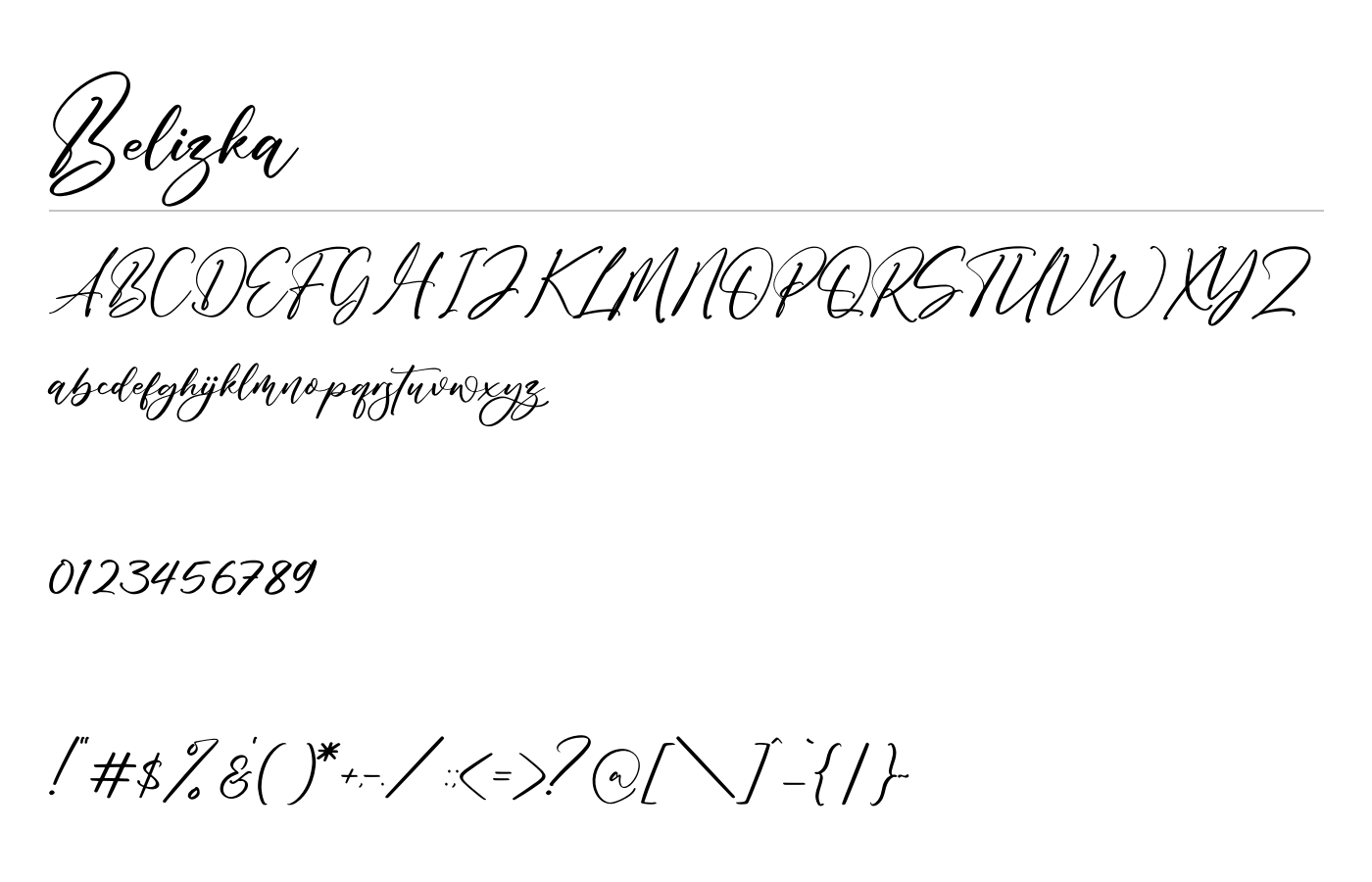
Belizka is an elegant script font that features smooth, flowing letterforms with a light and delicate stroke weight, giving it a graceful and sophisticated feel. Its handwritten style with refined curves and stylish swashes makes it perfect for invitations, branding, and luxury packaging where a personal yet polished touch is desired. This font excels in designs that aim to convey elegance, femininity, and a modern romantic charm.
Belizka Font
About Belizka Font
| Font family | Belizka Font |
| Designer | Nanang Jamaludin |